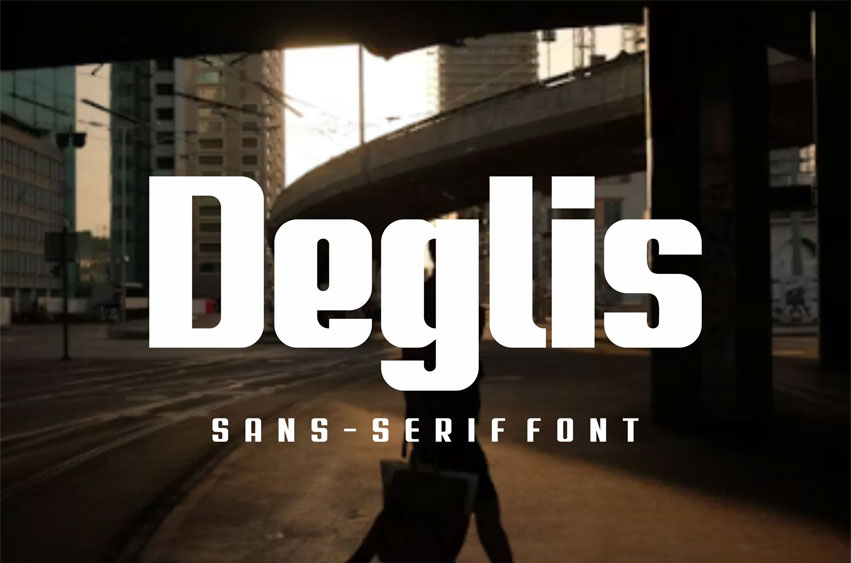
Deglis Font
Deglis Font Display Font Perfectly suited on print/screen. it’s perfect for Branding, name cards, posters, logos, magazines, covers, banners, t-shirts, headers, or even large-scale artwork.